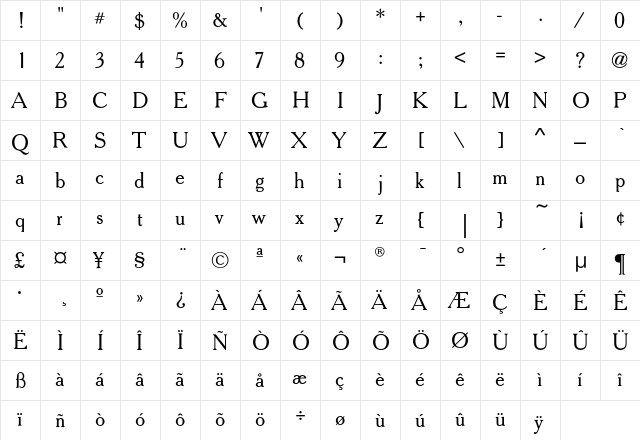
CheltenhamOldStyleEF Medium
| Foundry | Elsner+Flake Designstudios |
Design Context for CheltenhamOldStyleEF Typeface
CheltenhamOldStyleEF brings classic typographic sensibility to the table — its serifs and measured letterforms reflect centuries of print heritage.
Pro Tip: Set CheltenhamOldStyleEF with slightly loose tracking in headlines to let each letterform's detail read clearly at display sizes.